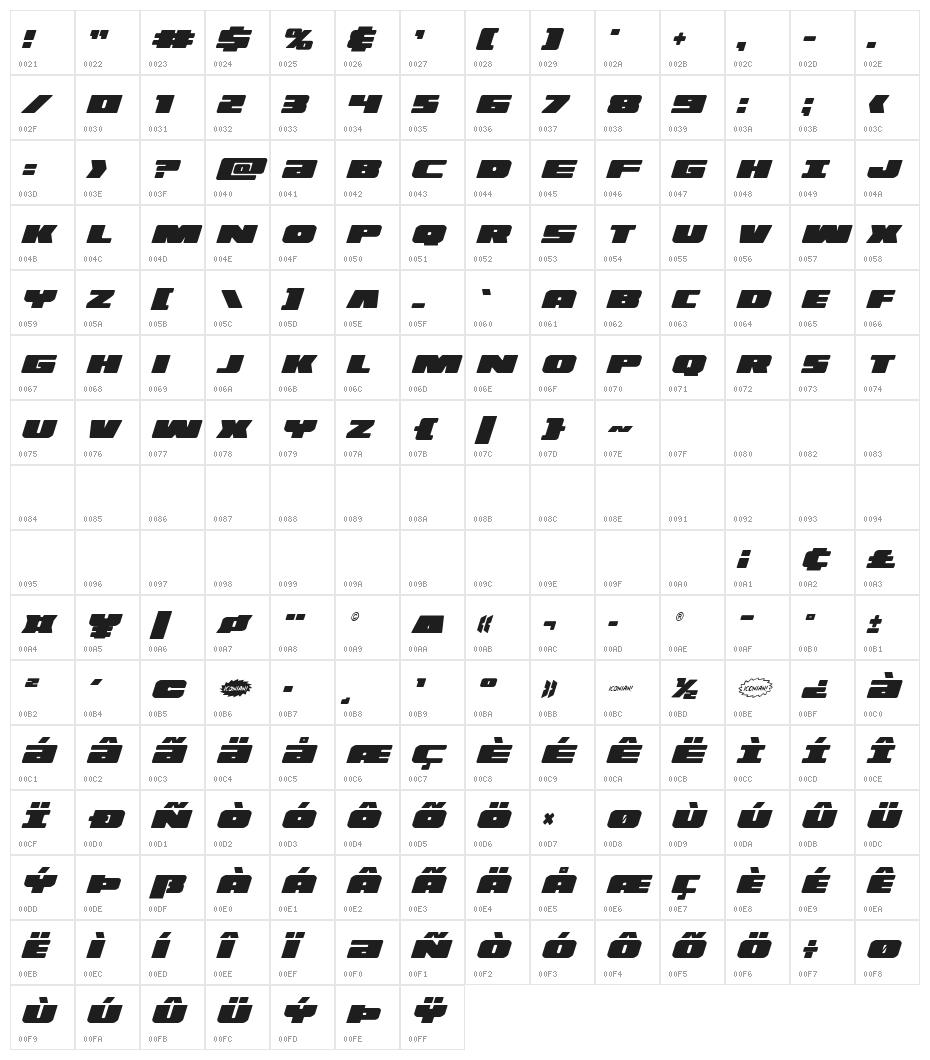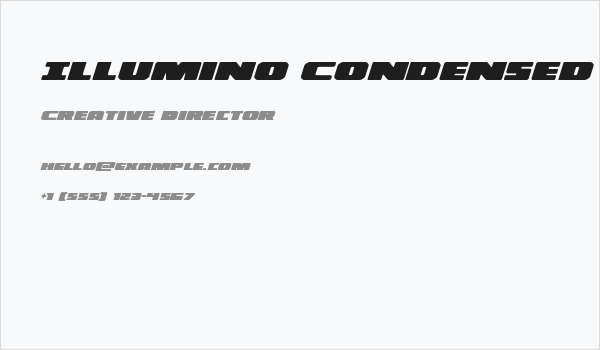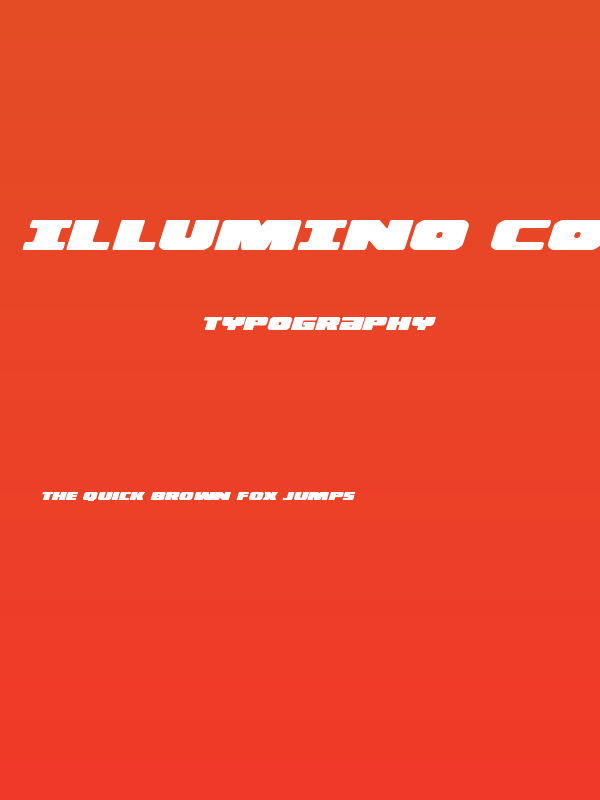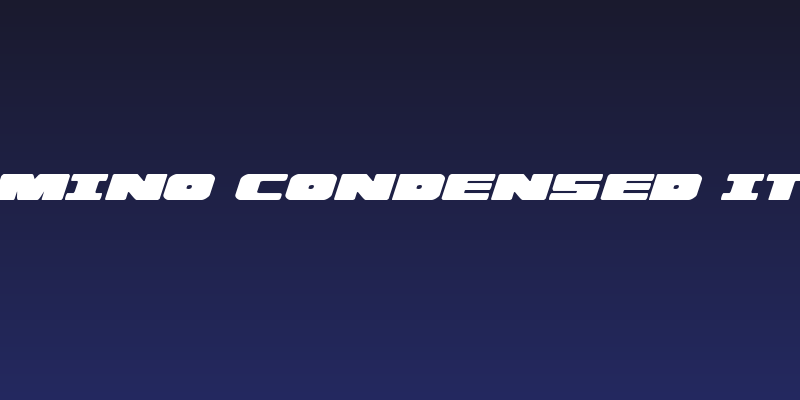
Illumino Condensed Italic Font
Illumino Condensed Italic Description
This font features a bold and dynamic style with a condensed and italicized form. The characters are thick and robust, giving a strong visual impact. The angular cuts and sharp edges contribute to a futuristic and modern aesthetic. Each letter is tightly spaced, enhancing the compact appearance. The numbers and special characters maintain the same boldness and angular design, ensuring consistency across all elements. This font is ideal for projects that require a striking and assertive look.
| Proposed Projects | Ideal for sports branding, futuristic designs, posters, and impactful headlines. |